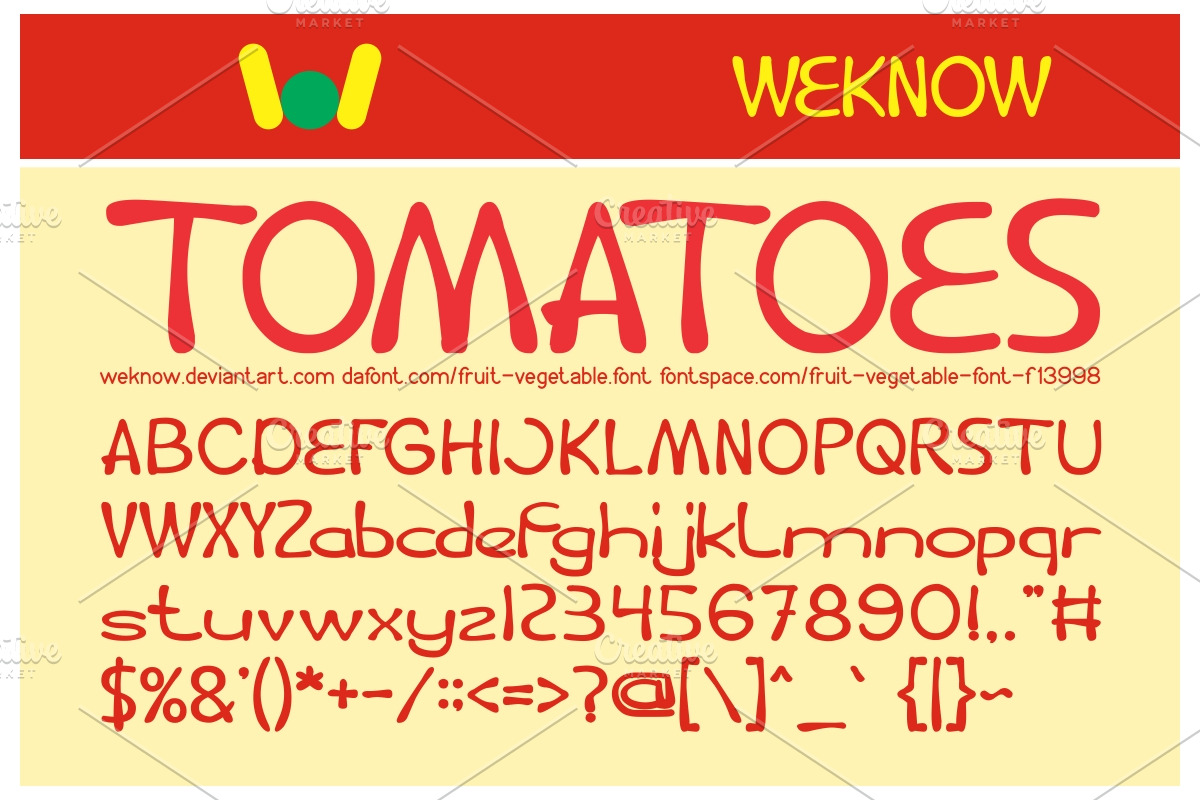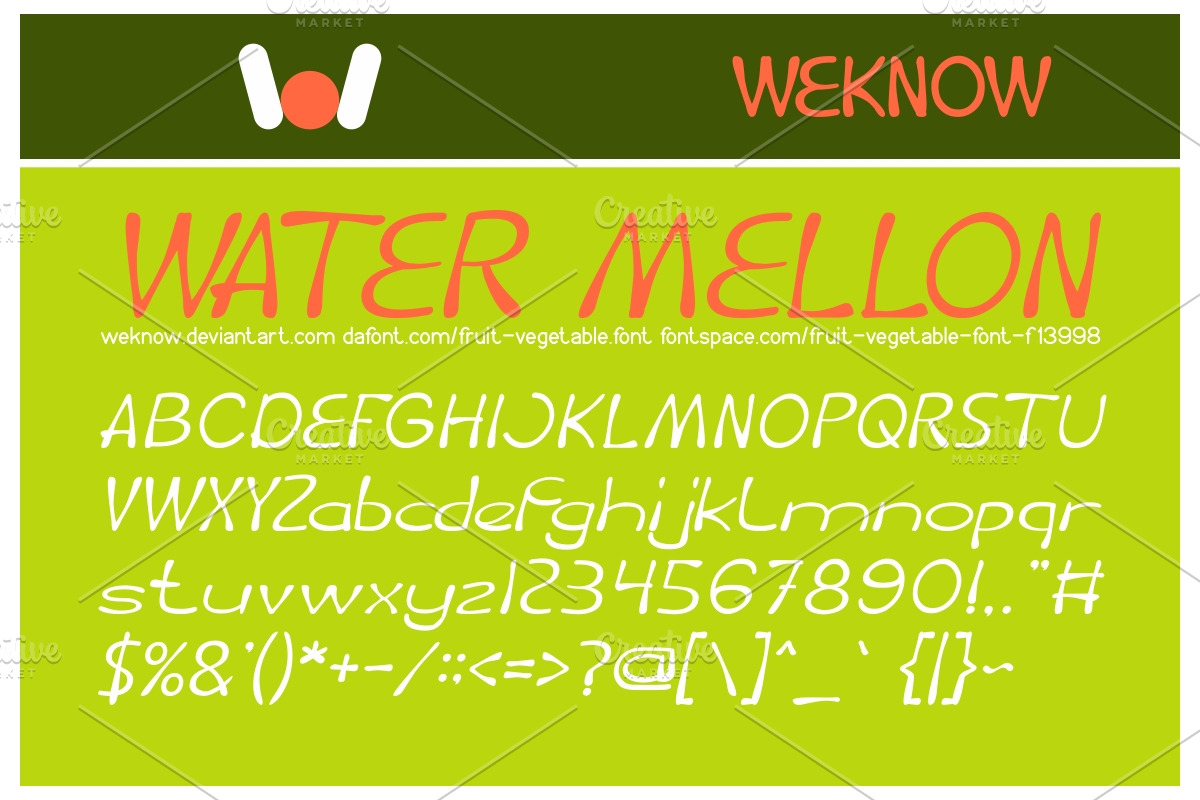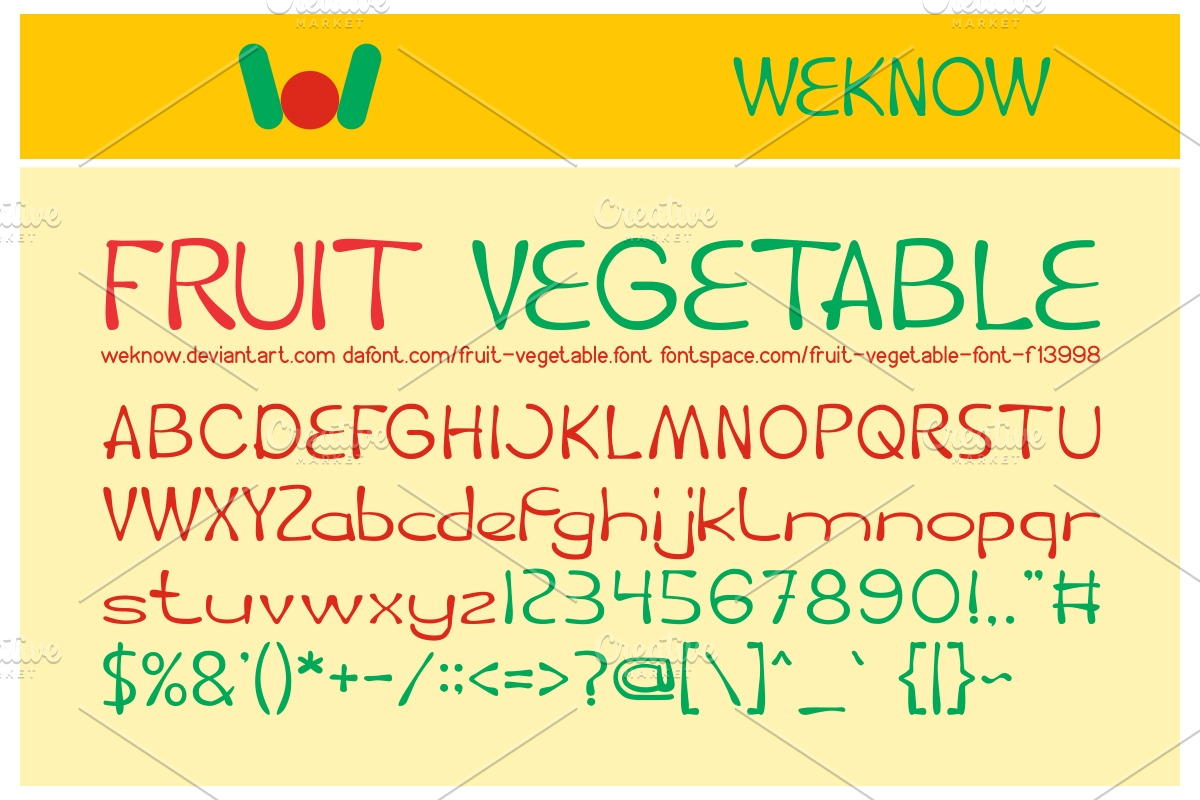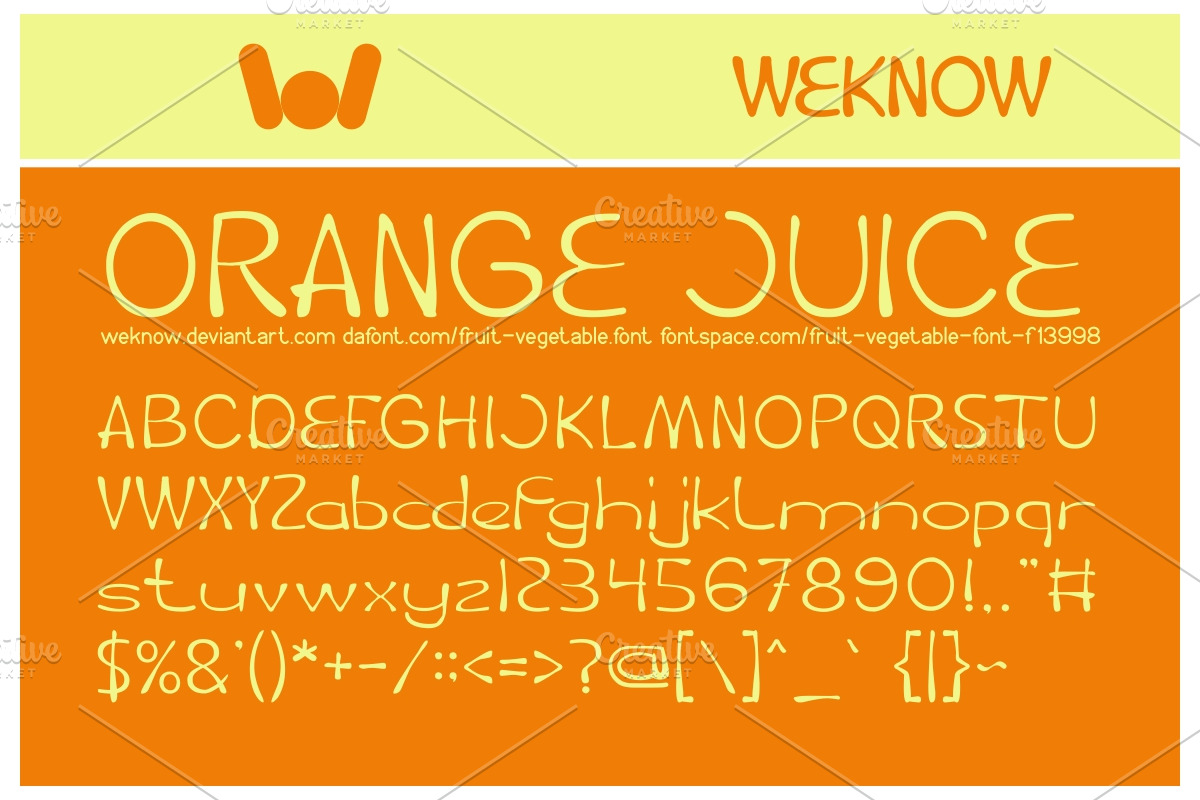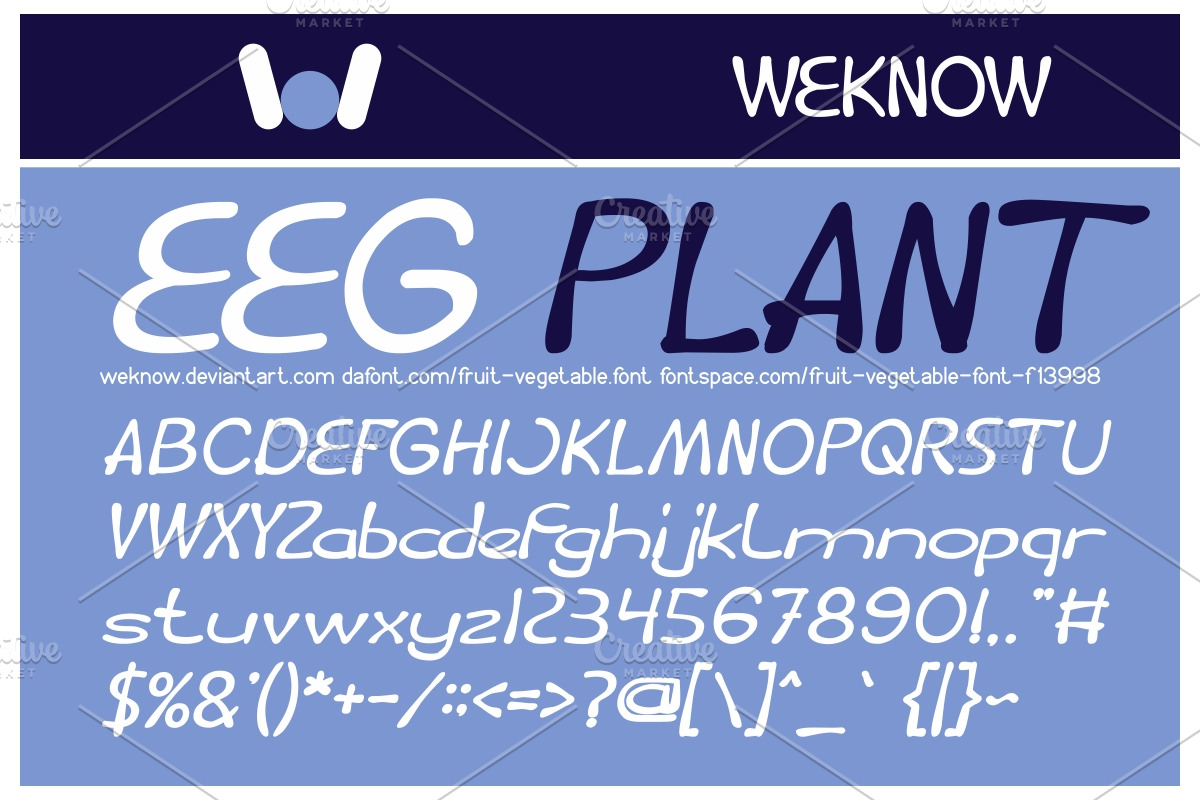
fruit vegetable font
available style: fruit vegetable-Bold, fruit vegetable-Bold-Italic, Fruit Vegetable-Hollow-Inverse, Fruit Vegetable-Inverse, fruit vegetable-Italic, Fruit Vegetable-Light
Why fruit vegetable font is worth a look
fruit vegetable font by weknow fits naturally into Branding, posters, packaging, typography.